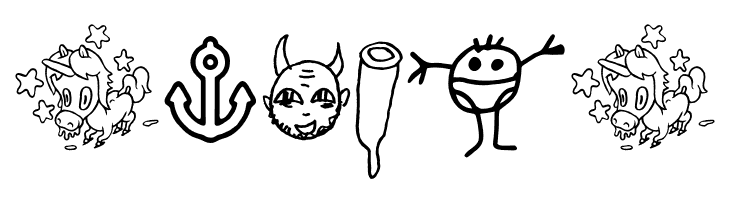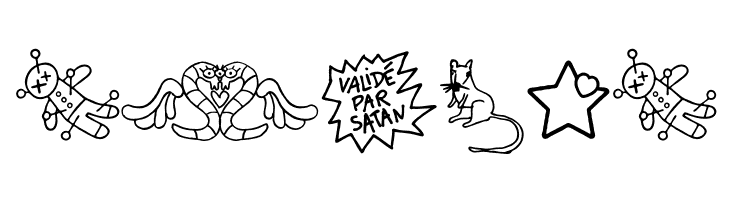
Hand-drawn doodle and graffiti-inspired decorative icon font.
A whimsical, hand-drawn dingbat font with cartoonish illustrations and playful text.
A playful, hand-drawn dingbat font with comic and graffiti influences.
A decorative dingbat font with hand-drawn, comic-style illustrations and expressive symbols.